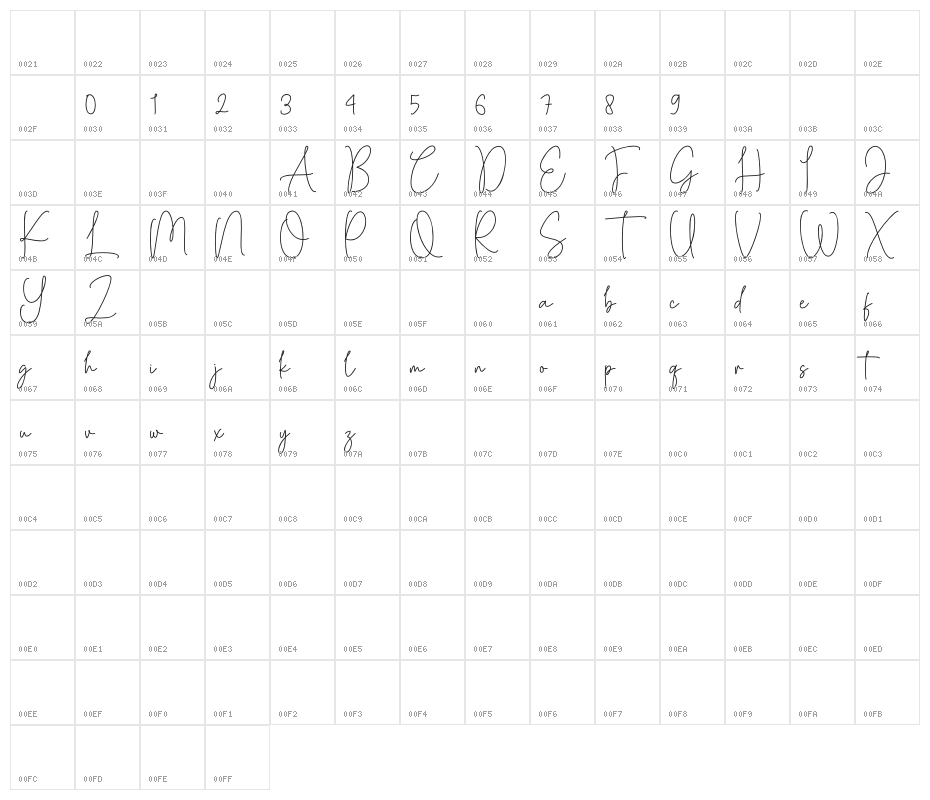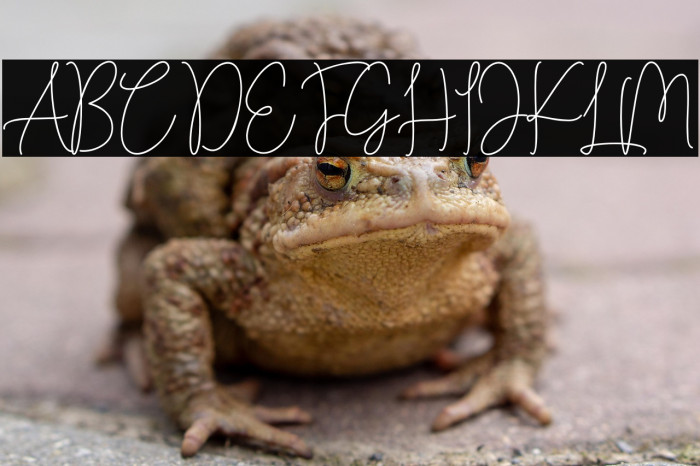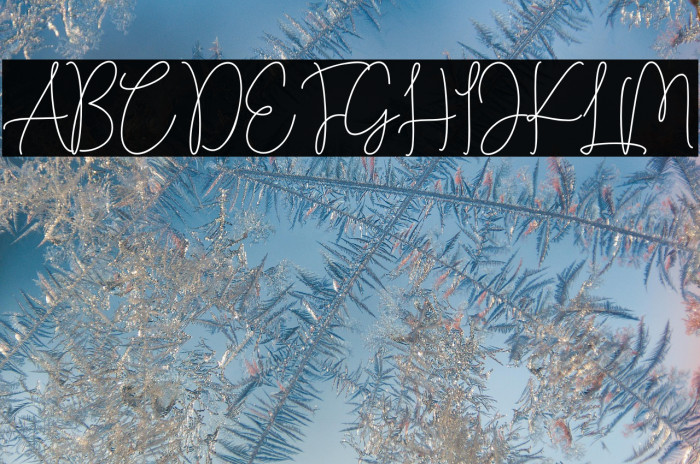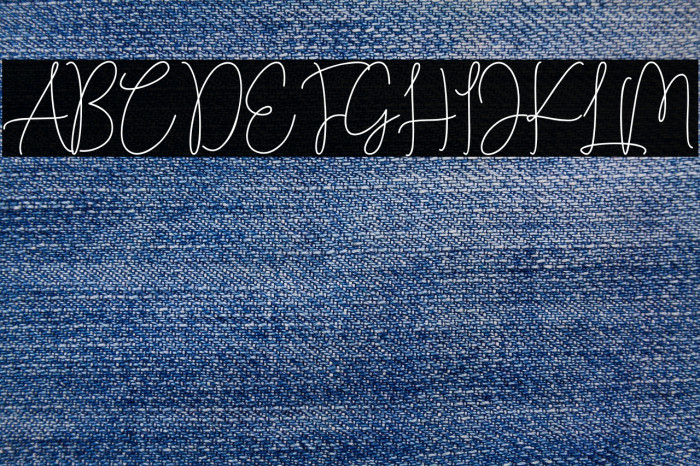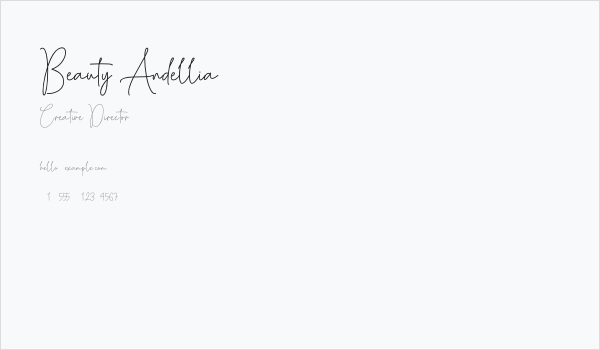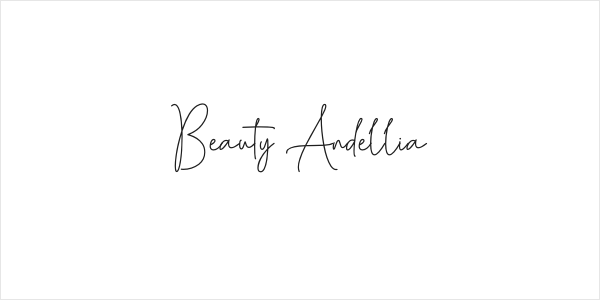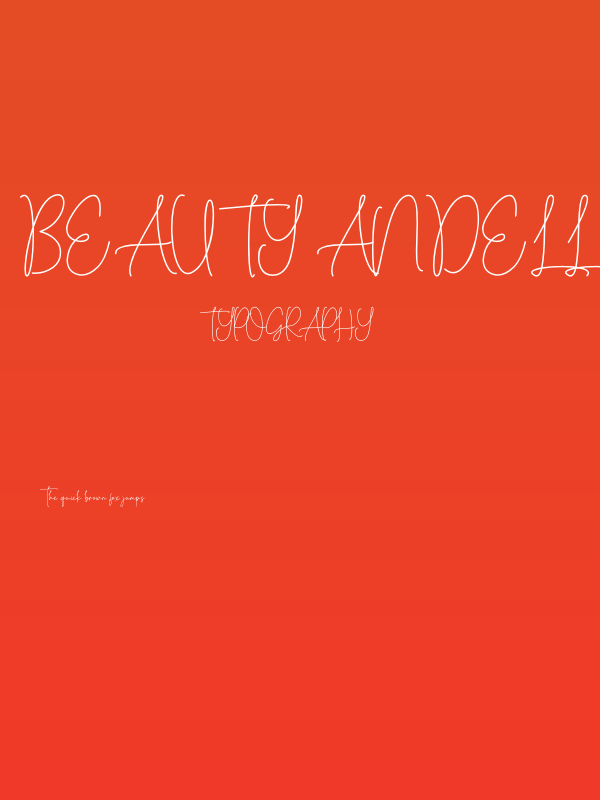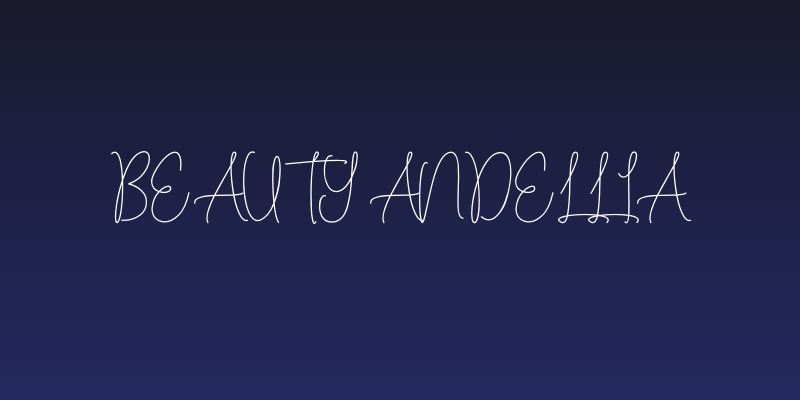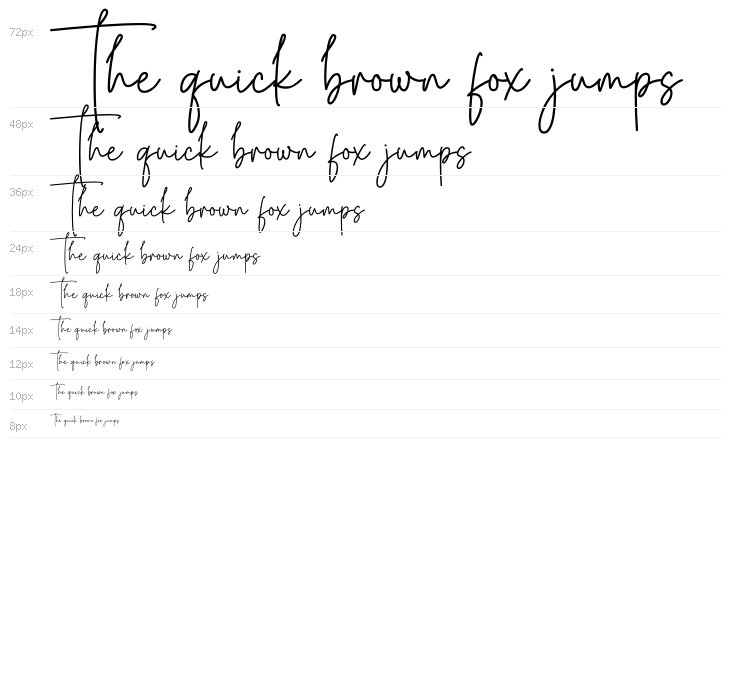
Beauty Andellia Font
Beauty Andellia Description
This font features a delicate and flowing script style with a handwritten appearance. The uppercase letters are tall and elegant, with a slight slant that adds a sense of movement and grace. The lowercase letters are more compact, maintaining the same fluidity and charm. The numerals are consistent with the overall style, offering a cohesive look. This font's thin strokes and airy design make it ideal for projects that require a personal touch or an artistic flair. The special characters are seamlessly integrated, enhancing its versatility.
Overall StyleElegant, Artistic
Use CaseLogos, Invitations, Personal Branding
Proposed ProjectsIdeal for wedding invitations, greeting cards, personal branding, and artistic projects.